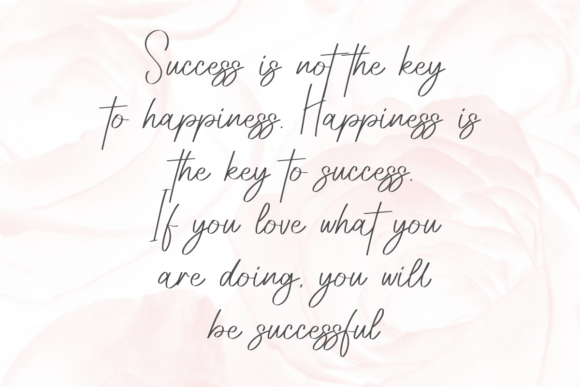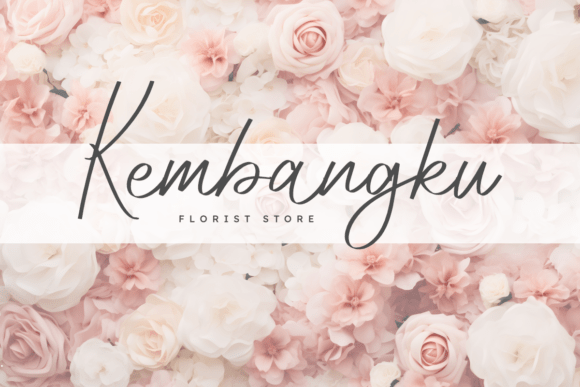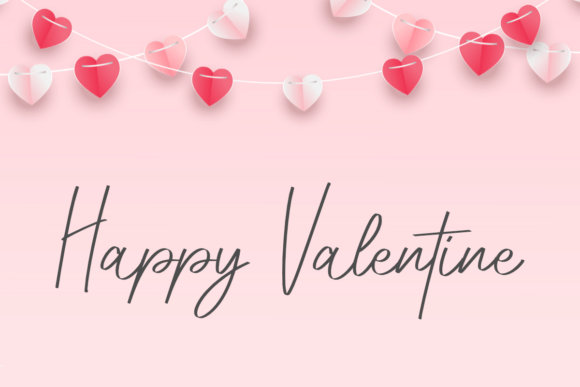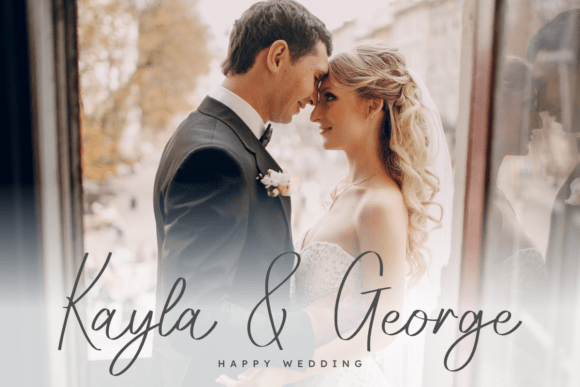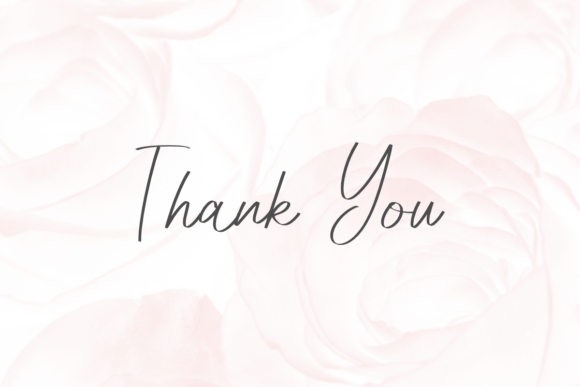
The Bigolla Font: A Beautiful Handwritten Font for Elegant Designs
I still remember the time I was working on a wedding invitation project, and I just couldn’t find the right font to capture the elegance and romance of the occasion. My client wanted something that exuded sophistication, yet had a soft, personal touch. That’s when I stumbled upon the Bigolla font, and it instantly became my go-to choice. In this article, I’ll share my experience with Bigolla, its features, and how to make the most of it in your designs.
An Honest Review of Bigolla Font
Bigolla is a beautiful handwritten font that blends elegance with a soft, romantic touch. Here’s what I love about it:
- ✨ Elegant letterforms with flowing curves
- ✅ Perfect for wedding invitations, beauty branding, and social media content
- ✅ Sophisticated yet has a handwritten charm
- ✅ Versatile and easy to pair with other fonts
While Bigolla is an amazing font, there are a few quirks to keep in mind:
- ⚠️ Some letters may have slight variations in width, which can affect alignment
- 🤔 Limited availability of certain diacritical marks
- Experiment with OpenType features, such as ligatures and stylistic alternates, to add more flair to your design
The Story Behind Bigolla
Bigolla was designed by a talented type designer who aimed to create a font that exudes elegance and romance. Inspired by traditional calligraphy and handwritten scripts, Bigolla combines classic elements with modern flair. The result is a beautiful, versatile font that’s perfect for a wide range of design projects.
| Font Name | Bigolla Font |
| Author | Font-Tastic |
| What makes Bigolla suitable for wedding invitations? | Bigolla’s elegant letterforms, flowing curves, and romantic feel make it perfect for wedding invitations and other formal events. |
| Is Bigolla a versatile font? | Absolutely! Bigolla’s versatility makes it easy to pair with other fonts and use in various design contexts, from digital media to print materials. |
| Does Bigolla support OpenType features? | Yes, Bigolla supports OpenType features, including ligatures, stylistic alternates, and glyphs, allowing you to create unique and customized designs. |